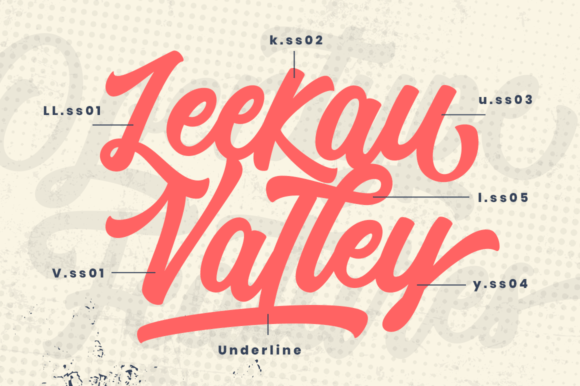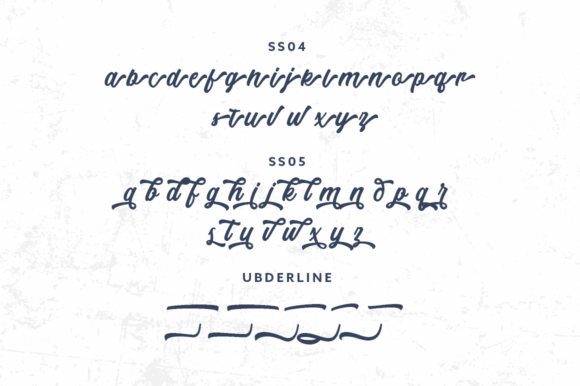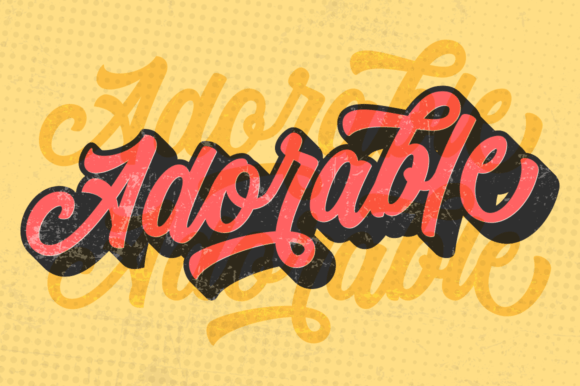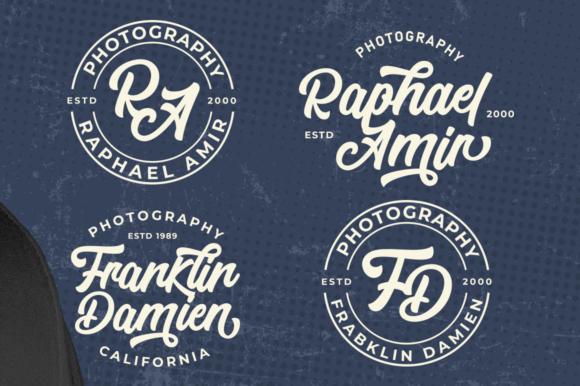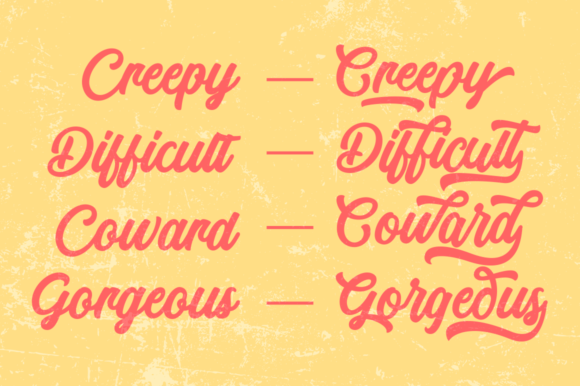
About Telford Town Font
“Telford Town” is a captivating handwritten font that exudes charm and elegance. Its dazzling appearance is a result of meticulous craftsmanship and intricate detailing, making it a valuable addition to any font library. Regardless of the topic or purpose, this font has the potential to elevate your creations and add a touch of sophistication and creativity to your designs.
What sets “Telford Town” apart is its PUA (Private Use Area) encoding, allowing effortless access to all glyphs and swashes. This feature enhances the font’s versatility, enabling designers to explore a wide range of creative possibilities. Whether you’re working on branding materials, invitations, social media graphics, or any other design project, “Telford Town” provides the flexibility and style needed to make your creations truly stand out.
The font’s neatly crafted letterforms and highly detailed strokes create a visually pleasing aesthetic, making it suitable for both digital and print applications. Its elegant curves and flowing lines add a touch of sophistication to your text, making it perfect for various design contexts, including logos, posters, packaging, and more.
By incorporating “Telford Town” into your designs, you can enhance the overall appeal and professionalism of your work. Its ability to convey a sense of refinement and creativity makes it a valuable asset for designers and creatives looking to make a lasting impression. Whether you’re designing for personal or commercial projects, “Telford Town” ensures that your creations exude elegance and style.
Embrace the dazzling allure of “Telford Town” and let it inspire your creativity. Its detailed craftsmanship and versatile design make it a go-to choice for designers seeking a font that combines sophistication with creativity. With easy access to its glyphs and swashes, you have the freedom to experiment and create visually stunning designs that leave a lasting impact on your audience. Elevate your creations with the timeless elegance of “Telford Town” and watch as your designs come to life with a touch of magic and sophistication.